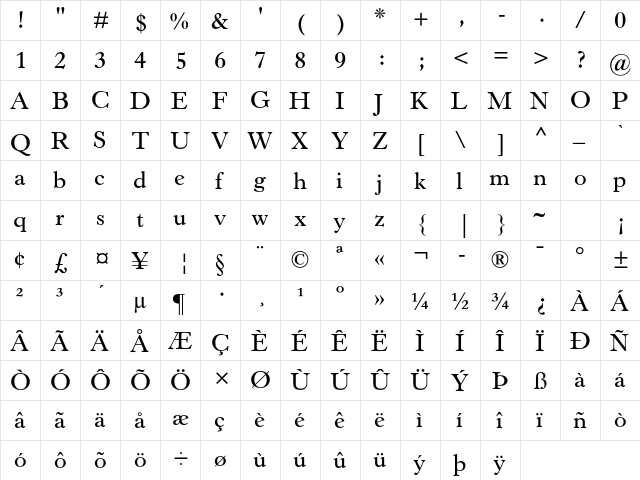
Horley Old Style MT Std Semibold
Design Context for Horley Old Style MT Std Typeface
Horley Old Style MT Std takes a measured approach to typography — its balanced proportions and neutral character make it a reliable workhorse for both digital and print work. The heavy weight commands attention and anchors typographic hierarchies.
Pro Tip: Pair Horley Old Style MT Std with a font of contrasting weight or personality to build a more expressive typographic hierarchy.